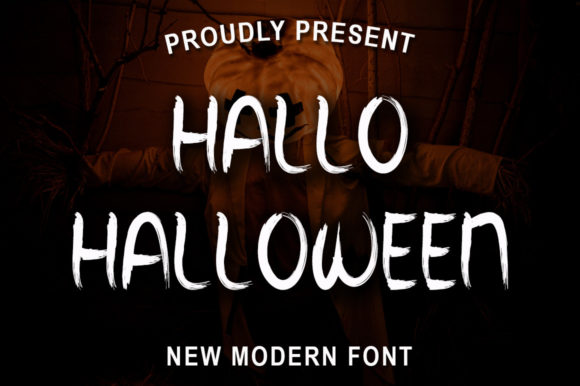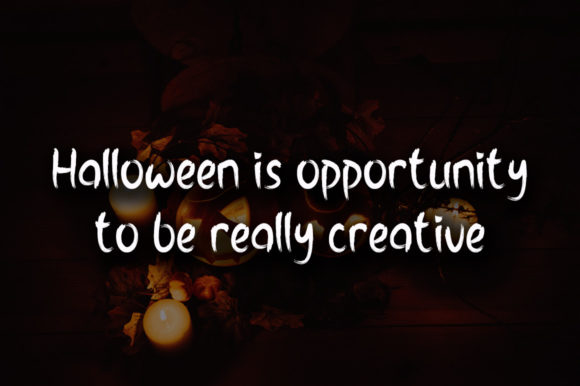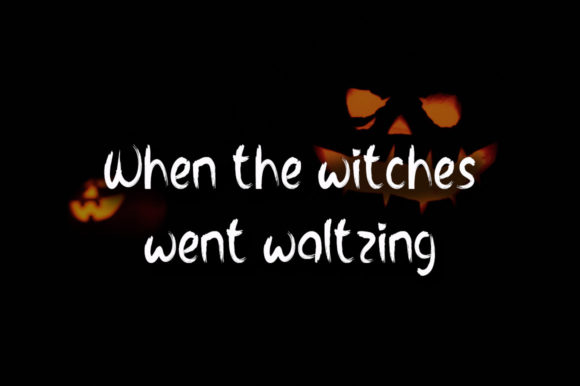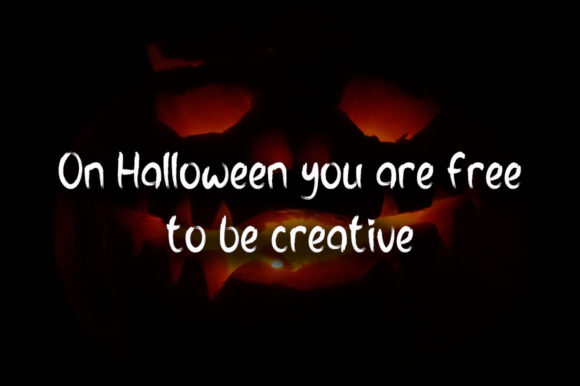
Hallo Halloween Font
About Hallo Halloween Font
Hallo Halloween is a cool and somewhat spooky, brushed handwritten font. Its natural and unique style makes it incredibly fitting to a large pool of designs related to Halloween.